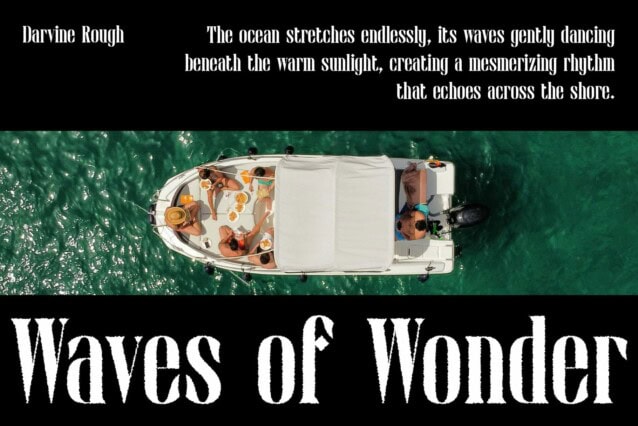
Darvine Rough Font
Darvine Rough Font is a modern serif font featuring a condensed and minimalist design. Its slim, streamlined letterforms convey sophistication and efficiency, making it perfect for contemporary layouts. The serif details maintain a timeless elegance, offering a balance between classic and modern aesthetics.